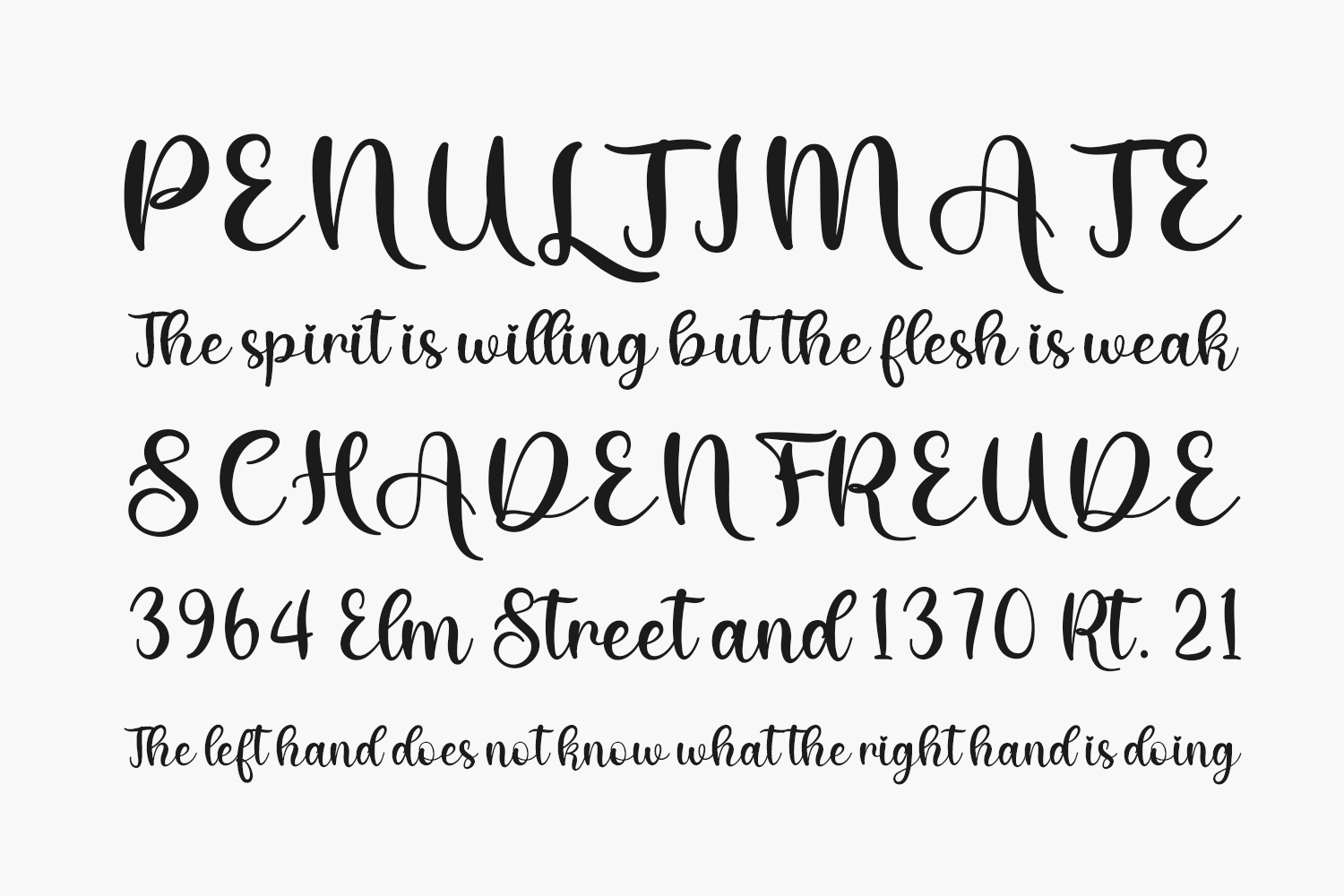
Larinda Free Font is a sweet calligraphy typeface with characters that dance along the baseline. It will add a luxury spark to any design project that you wish to create. Larinda Free Font was designed by Letter Art Studio and is free for personal use only. Please purchase the full version for commercial use.